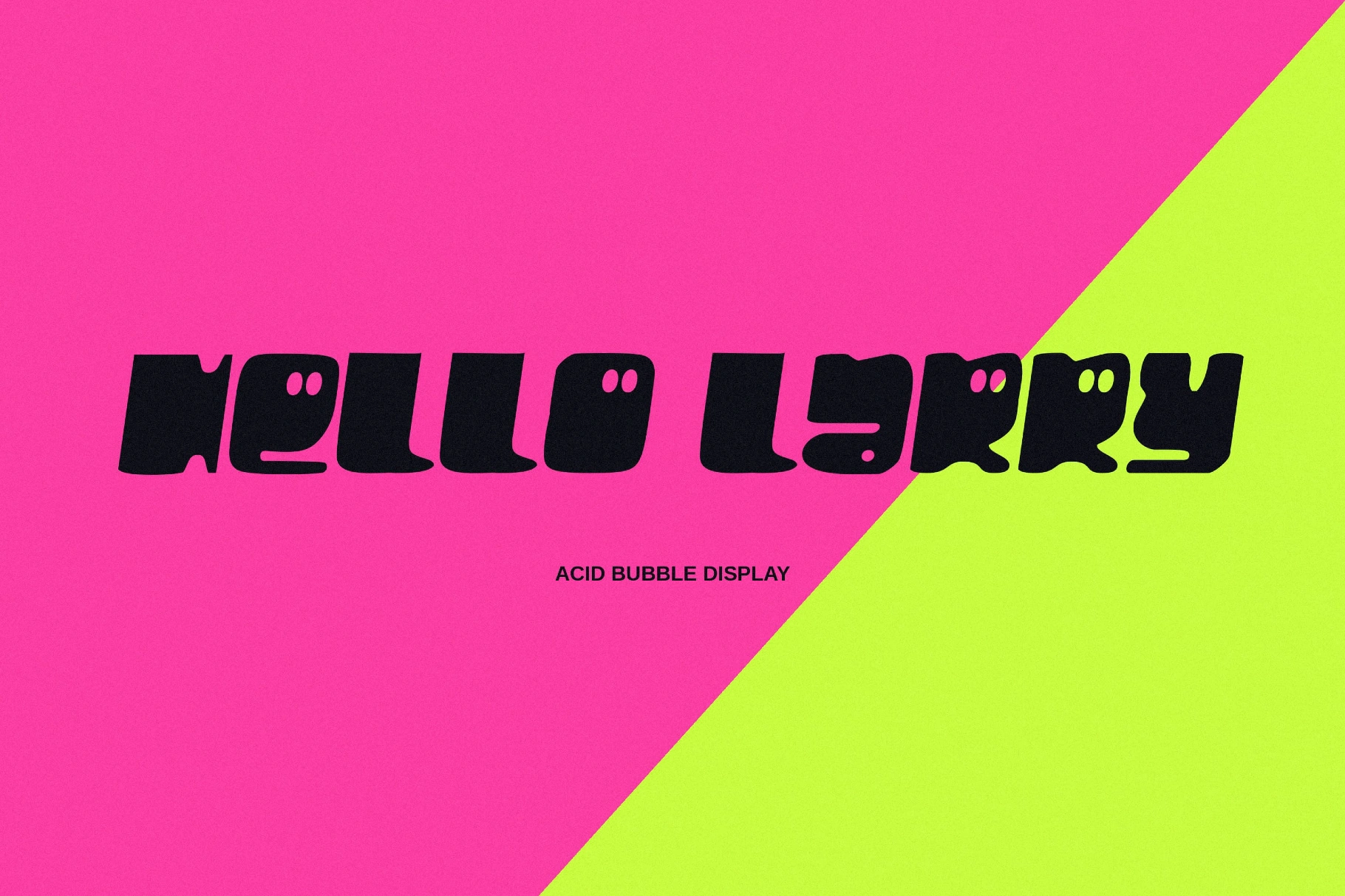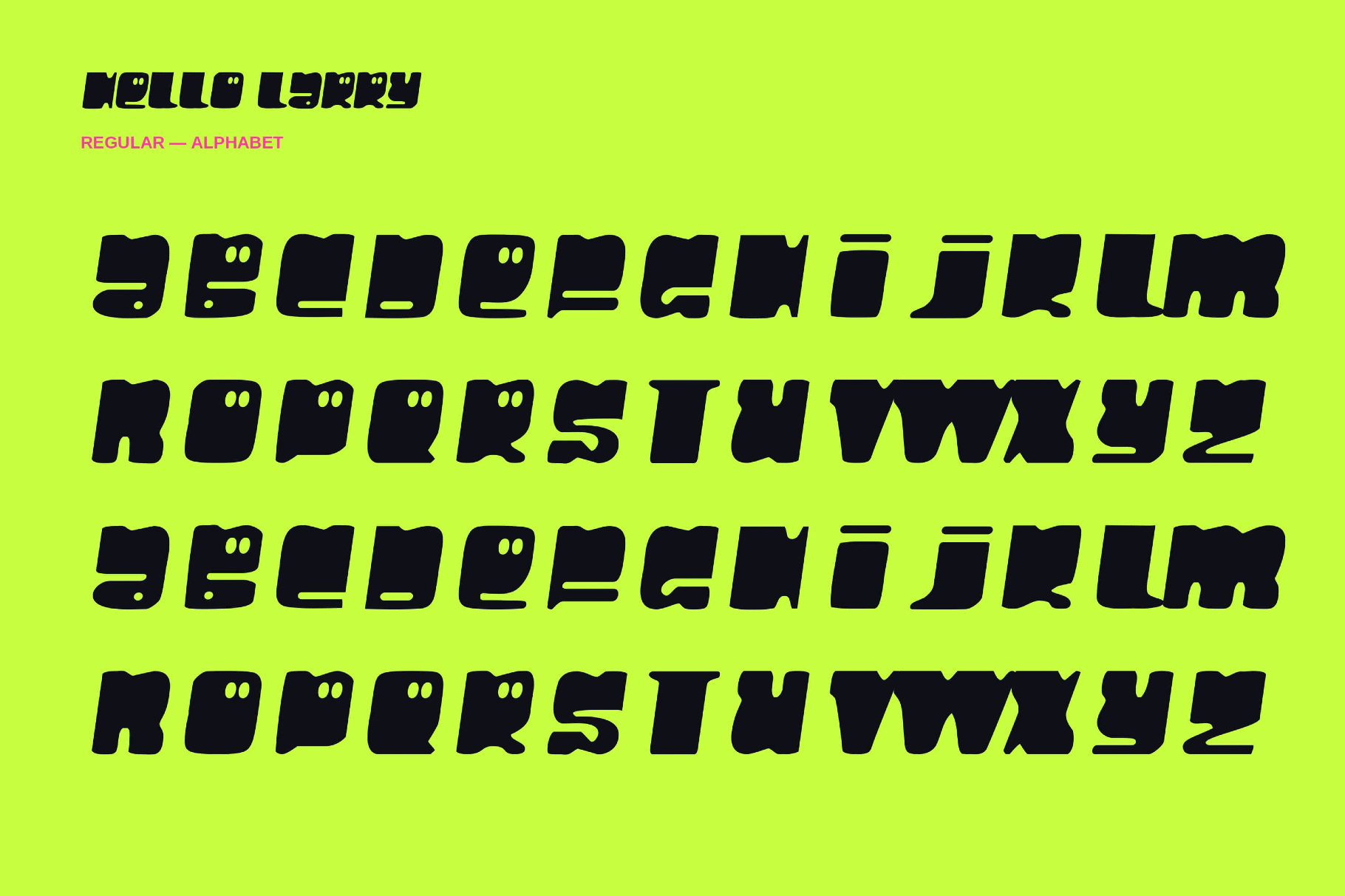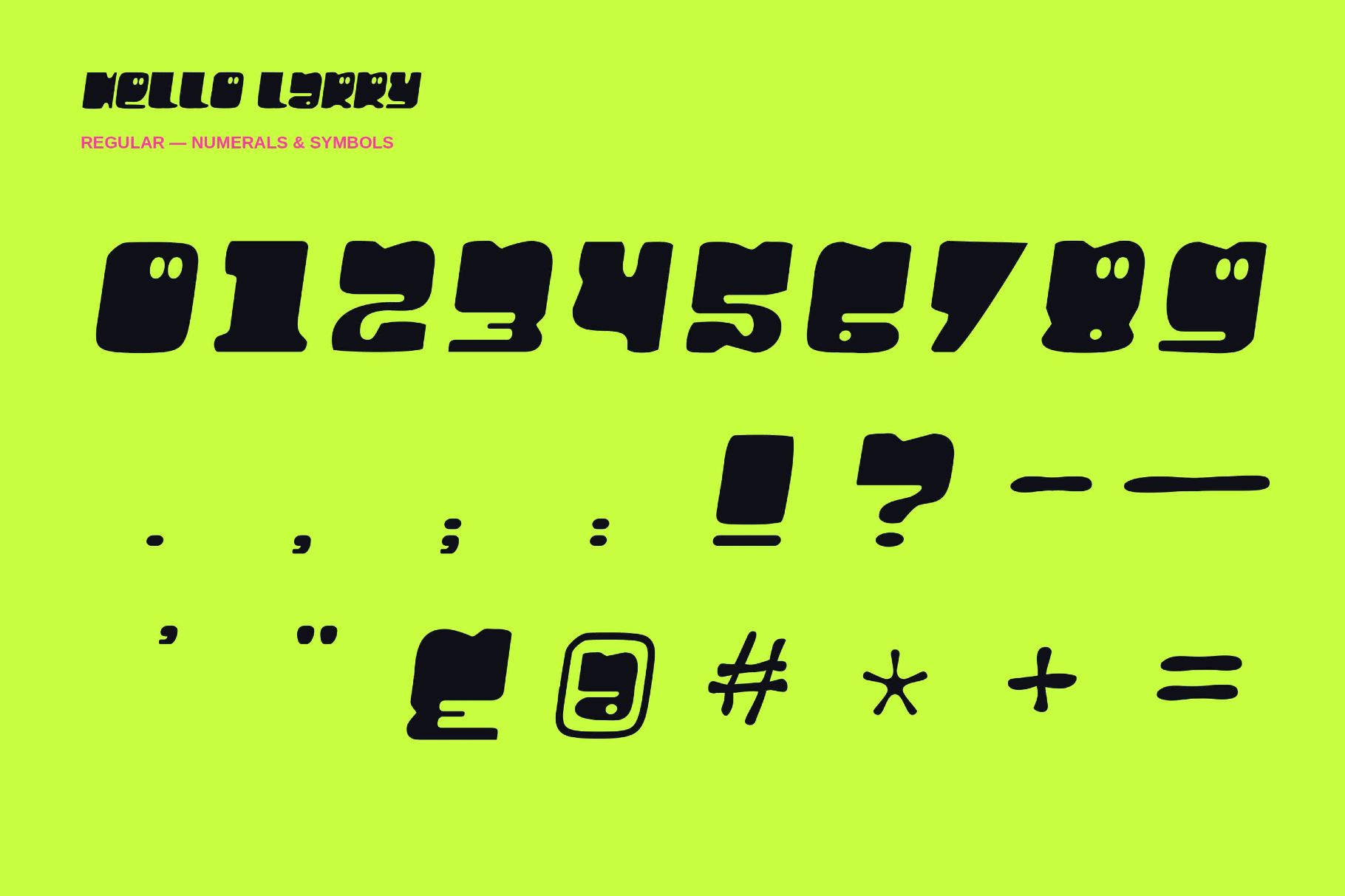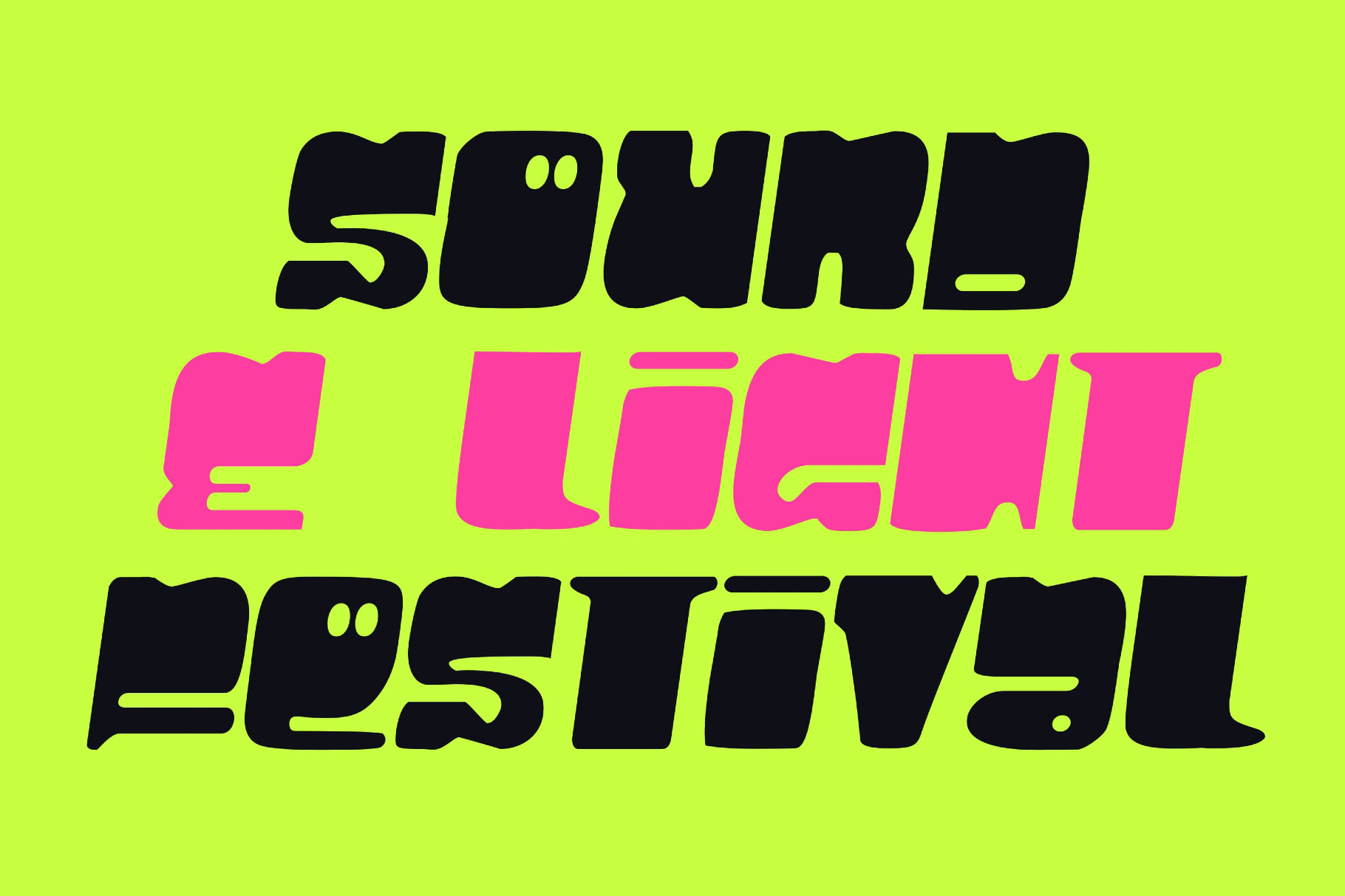
Hello Larry - Free Playful Font
Hello Larry
Playful forms of Hello Larry recall Saturday-morning title cards, novelty candy packaging, toy-store signs, and classroom doodles. Its goofy hand-drawn cartoon lettering, with bouncy shapes, an uneven rhythm, and comic timing, gives headlines and short phrases a bright voice with plenty of character.
The font works well for kids’ posters, birthday invitations, snack branding, toy labels, comic captions, classroom graphics, educational worksheets, sticker designs, merch, YouTube thumbnails, and social media artwork.